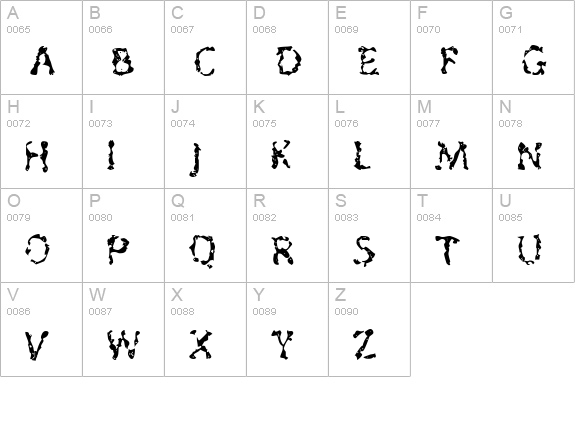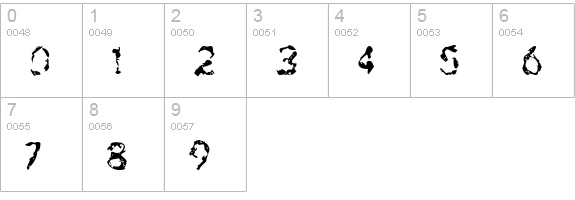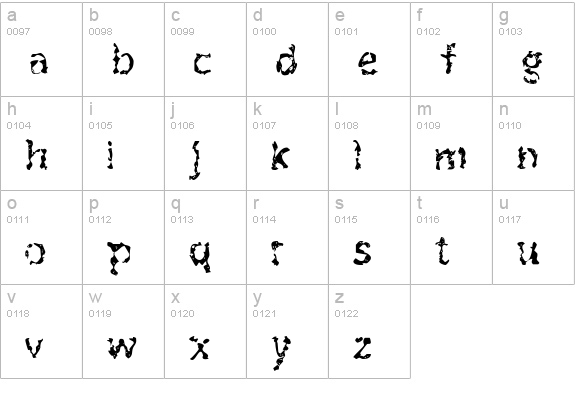
outofink Font Details
Introducing Outofink font, a unique and stylish typeface that brings a touch of creativity and personality to your designs. With its modern yet playful aesthetic, Outofink is perfect for a wide range of projects, from branding to social media graphics to packaging design. This versatile font features a hand-drawn look with a charming imperfection that adds character and warmth to any text. Its bold and eye-catching appearance is sure to make your messages stand out and grab attention. Best of all, Outofink is completely free to download at FontsMarket.com. Don't miss out on the opportunity to enhance your designs with this one-of-a-kind font that is both stylish and accessible. Download Outofink today and let your creativity flow!